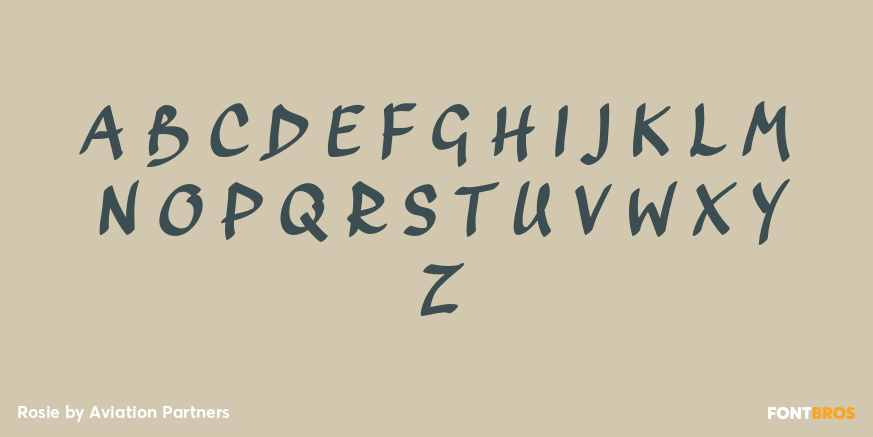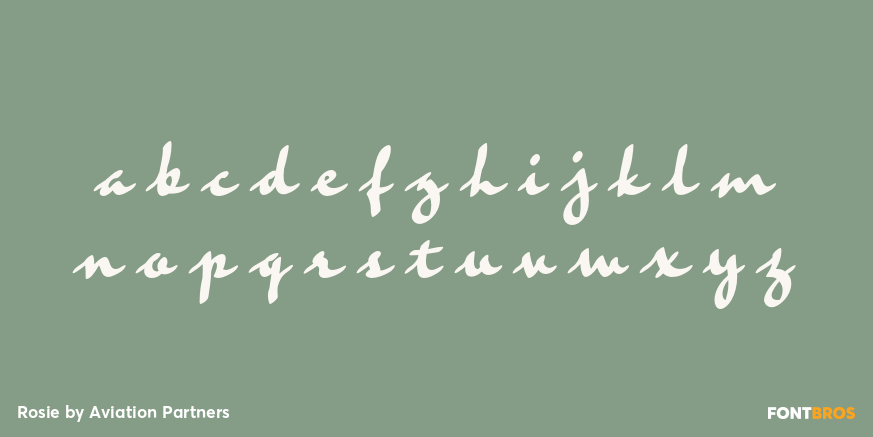
Rosie
Font Family by Aviation Partners
Rosie is a chunky but elegant pen script with useful OpenType features. In non OpenType-savvy applications it still works beautifully as a fully joined script.